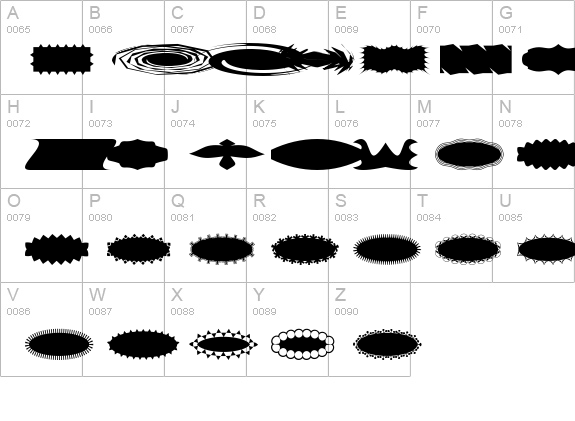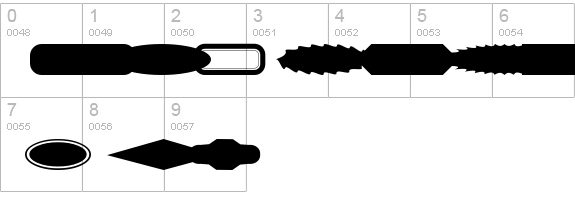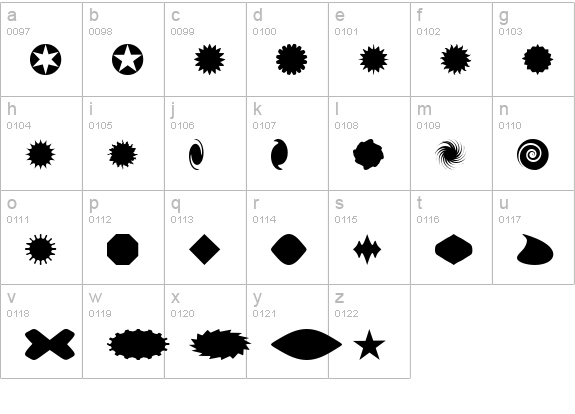
ButtonButton AOE Font Details
Introducing ButtonButton AOE font, a delightful typeface that exudes charm and playfulness. With its bold and eye-catching design, this font is perfect for adding a touch of fun to your projects. Whether you're working on a poster, logo, or any other creative endeavor, ButtonButton AOE font is sure to make a statement. The best part? ButtonButton AOE font is completely free to download at FontsMarket.com, making it accessible to all designers and creatives looking to add a unique touch to their work. Don't miss out on the opportunity to enhance your designs with this whimsical and versatile font. Download ButtonButton AOE font today and let your creativity shine!